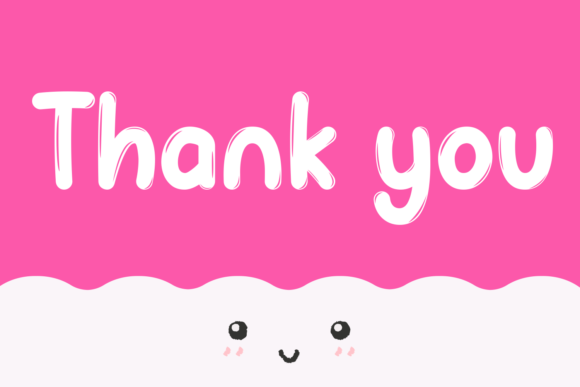
Happiness Bubble Font
Happiness Bubble is a cool and trendy display font. This font was particularly crafted for those who need a beautiful and refreshing look to their designs.